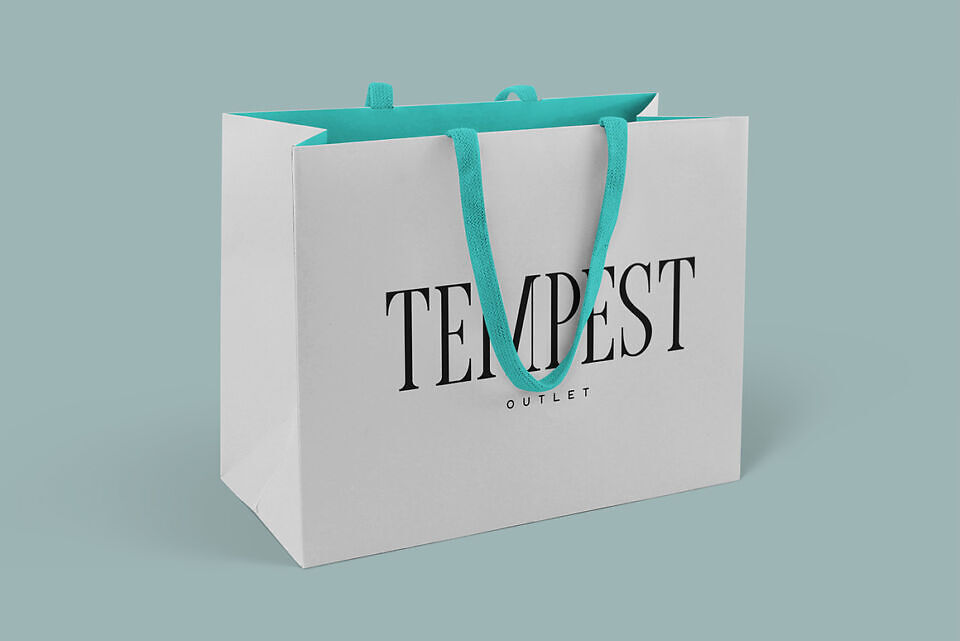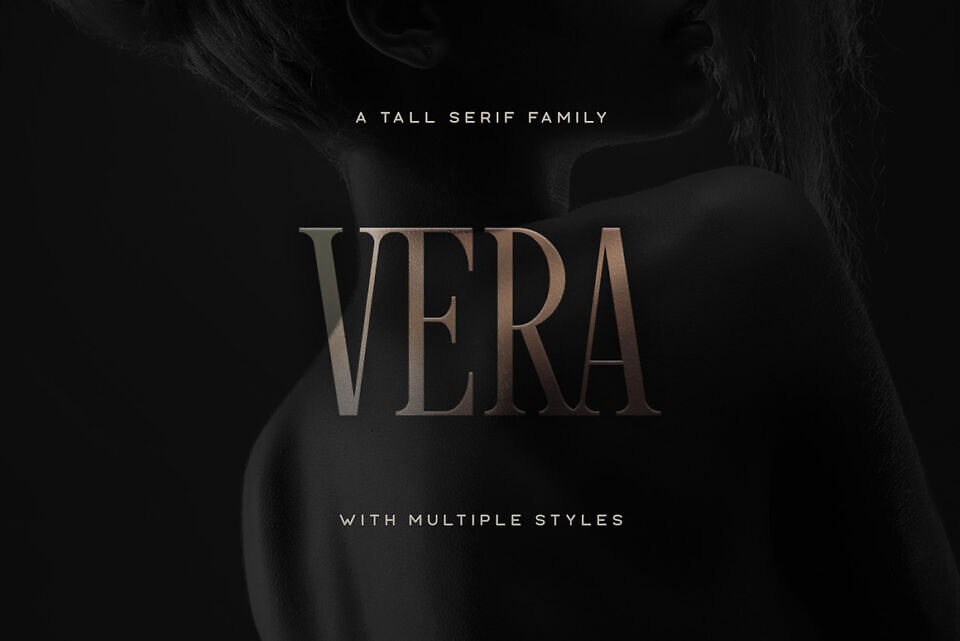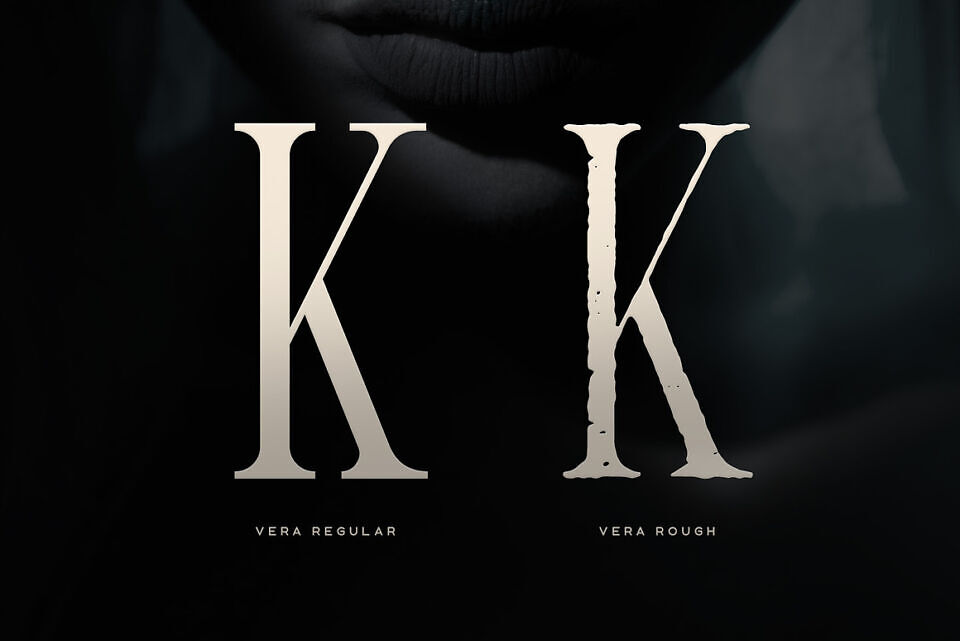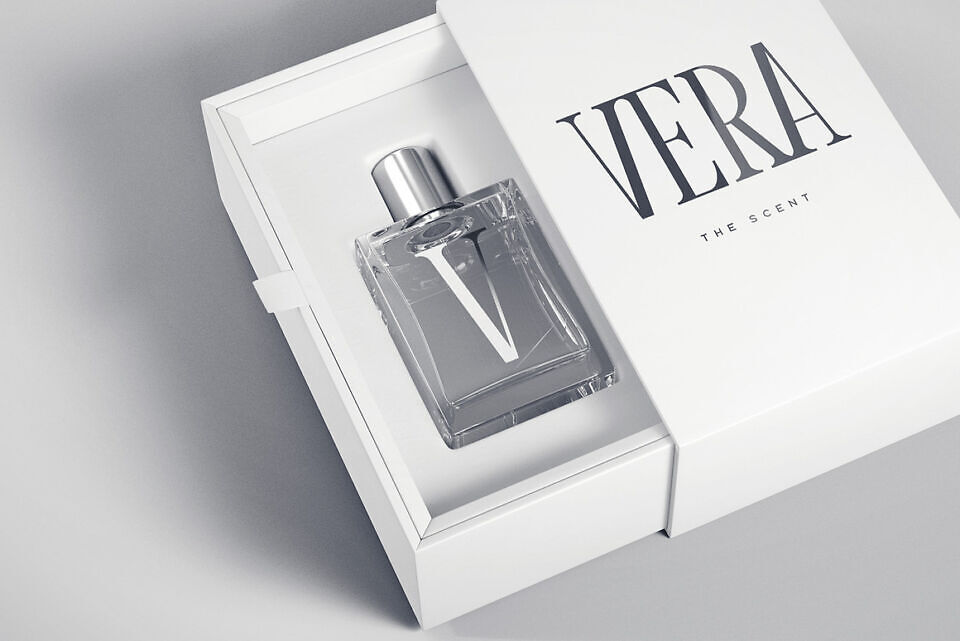
Vera is a tall all-caps and slender serif display font. It comes in rough, regular and oblique styles and includes multilingual uppercase characters, alternate letters, numbers and punctuation.
The font was made for sleek headlines in narrow spaces likes invitations, magazine covers and titles.